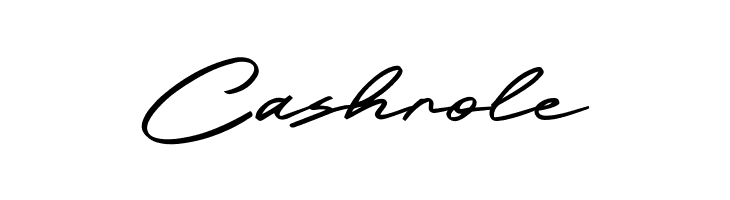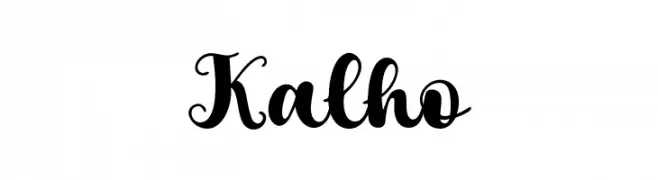
A bold, brush-style handwritten font with dynamic strokes.
A bold, brush-style font with dynamic, hand-painted strokes.
A bold, brush-style font with dynamic, expressive strokes.
A bold, flowing script font with elegant, cursive strokes and seamless connections.
A dynamic, cursive script font with a handwritten, energetic style.
A fluid, cursive font with a handwritten, elegant style.
A playful, handwritten font with smooth, rounded edges and a casual style.
A bold, playful script font with a modern, energetic style.
A lively, cursive script font with interconnected characters and elegant loops.
A bold, flowing script font with elegant curves and decorative swashes.